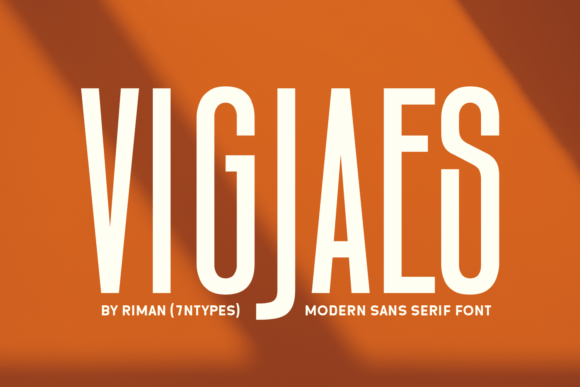
Vigjaes Font: The Ultimate Condensed Sans-Serif for Modern Designs
In the realm of typography, the right font can elevate your design from ordinary to extraordinary. For those seeking a blend of contemporary style and compact efficiency, Vigjaes Font emerges as a game-changer. This article delves into the world of Vigjaes, exploring its unique features, applications, and the creative possibilities it offers to designers and brands alike.
What is Vigjaes Font?
Vigjaes is a condensed sans-serif font that perfectly marries modern vibes with the efficiency of a compact design. Its unique blend of style and compression makes it an ideal choice for designers looking to make a dynamic impact. Whether you’re working on a greeting card, packaging, brand identity, poster, or any project that demands attention and exudes contemporary elegance, Vigjaes is the go-to typeface.
Key Features of Vigjaes Font
- Condensed Form: Vigjaes boasts a nimble and versatile condensed form, making it perfect for compact spaces without compromising on style or readability.
- Contemporary Style: With its sleek lines and modern aesthetic, Vigjaes brings a touch of contemporary elegance to any design.
- Dynamic Impact: The font’s design ensures that your message is conveyed with a dynamic punch, capturing attention effortlessly.
- Versatility: From greeting cards and packaging to brand identities and posters, Vigjaes adapts seamlessly to various design needs.
Exploring the Applications of Vigjaes Font
Vigjaes’ versatility is one of its most compelling attributes. Let’s explore some of the areas where Vigjaes truly shines:
- Greeting Cards: Add a modern twist to your greeting cards with Vigjaes, making them stand out with its stylish and compact form.
- Packaging: Elevate your product packaging with a font that combines elegance and efficiency, ensuring your brand stands out on crowded shelves.
- Brand Identities: Establish a contemporary and sophisticated brand image with Vigjaes, perfect for companies looking to make a lasting impression.
- Posters: Whether it’s for an event, promotion, or awareness campaign, Vigjaes helps your poster grab attention and communicate effectively.
Unlocking Creative Possibilities with Vigjaes
The true power of Vigjaes lies in its ability to inspire creativity. Designers are constantly looking for fonts that not only meet their technical requirements but also spark imagination. Vigjaes, with its unique blend of style and functionality, opens up a world of creative possibilities:
- Typography-Centric Designs: Use Vigjaes as the focal point of your design, experimenting with sizes, colors, and arrangements to create visually striking typography.
- Branding Projects: Develop a cohesive brand identity with Vigjaes, utilizing its modern look to resonate with your target audience.
- Advertising: Create compelling ad copy with Vigjaes, leveraging its readability and style to capture attention and drive engagement.
- Digital Content: From website headers to social media graphics, Vigjaes brings a professional and contemporary feel to your digital content.
Why Choose Vigjaes Font?
In a sea of typefaces, Vigjaes stands out for several reasons:
- Unique Style: Vigjaes offers a fresh and modern aesthetic that’s hard to find in more traditional fonts.
- Versatility: Its condensed form and clear readability make it suitable for a wide range of applications.
- Efficiency: Vigjaes allows designers to convey their message effectively without sacrificing style, making it perfect for projects with spatial constraints.
- Contemporary Appeal: For brands and designers aiming to appear modern and sophisticated, Vigjaes is an excellent choice.
Vigjaes Font is more than just a typeface; it’s a design companion that brings a blend of contemporary style, efficiency, and versatility to the table. Whether you’re a seasoned designer or a brand looking to elevate your visual identity, Vigjaes offers the tools to create impactful and elegant designs. With its wide range of applications and creative possibilities, Vigjaes is poised to become a staple in the world of typography. So, dive into the world of Vigjaes and discover how this compelling typeface can transform your designs.